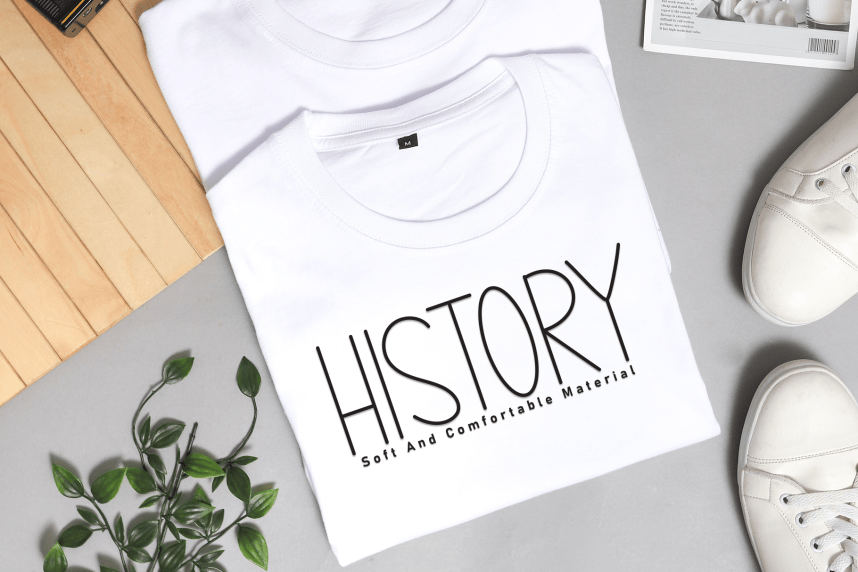
Pancake – Simple Handmade Font
Pancake – Simple Handmade Font is a sweet and friendly handwritten display font. Cute and fun, this font is ideal for writing wedding invitations, cards, or any other design that might need a playful touch!